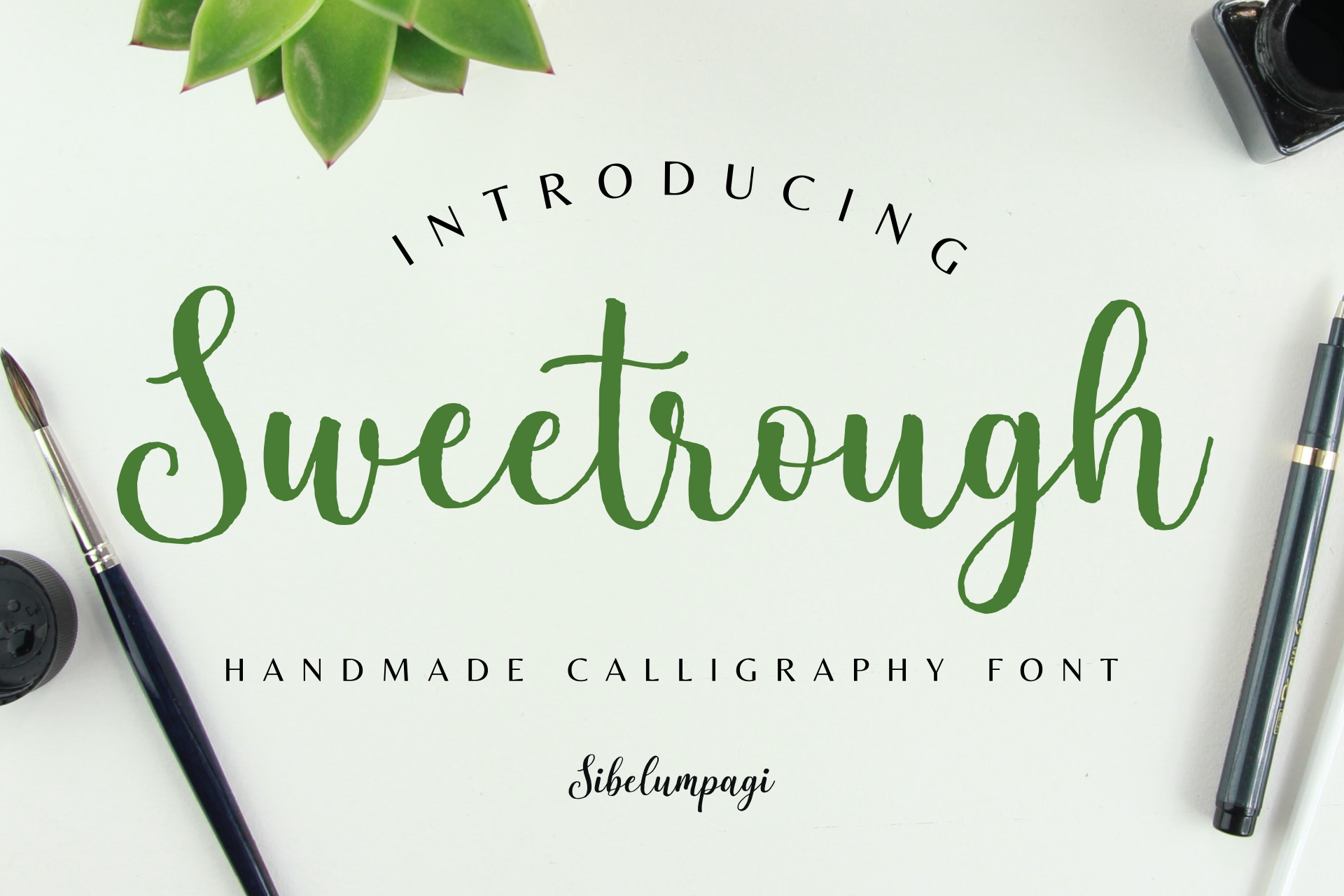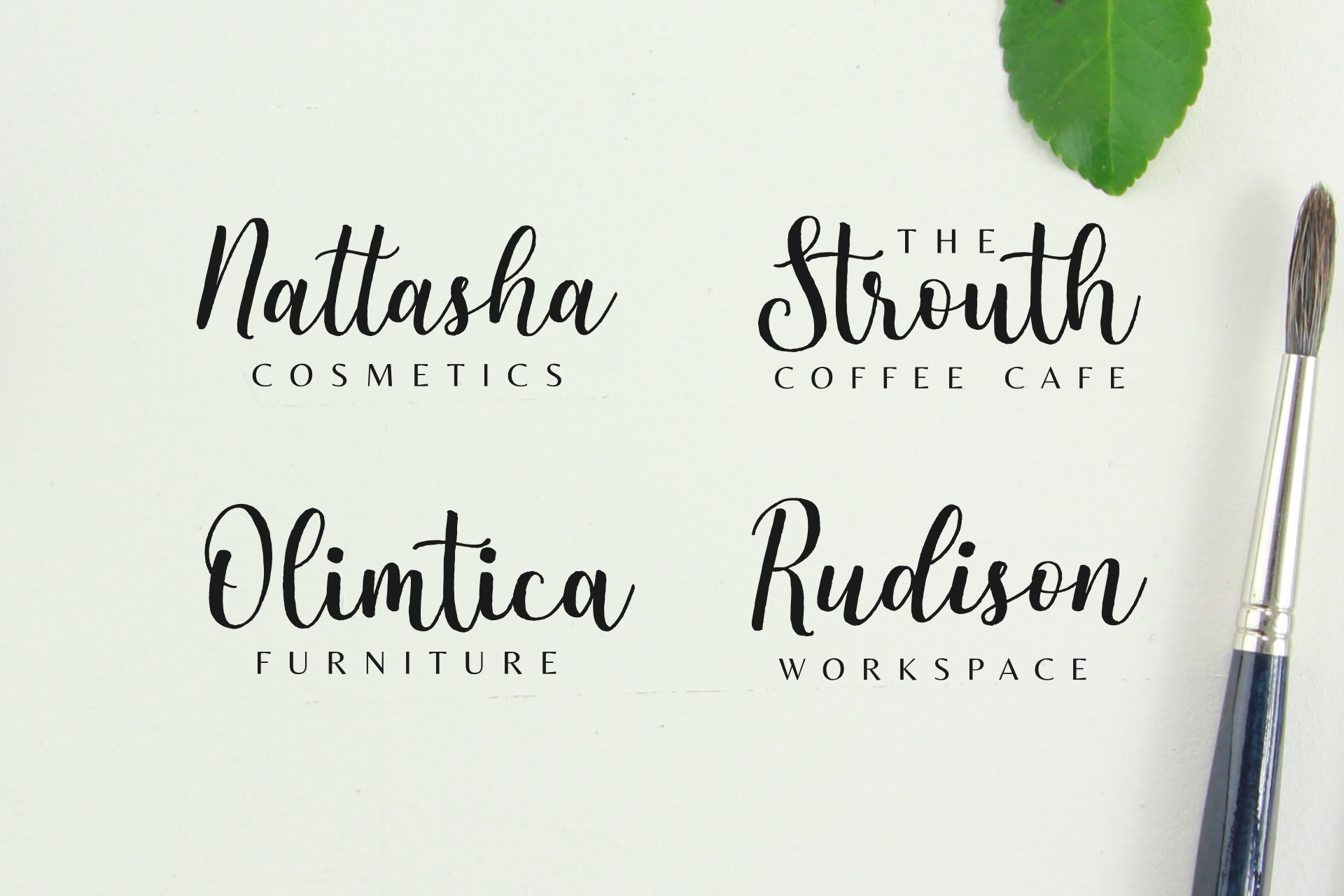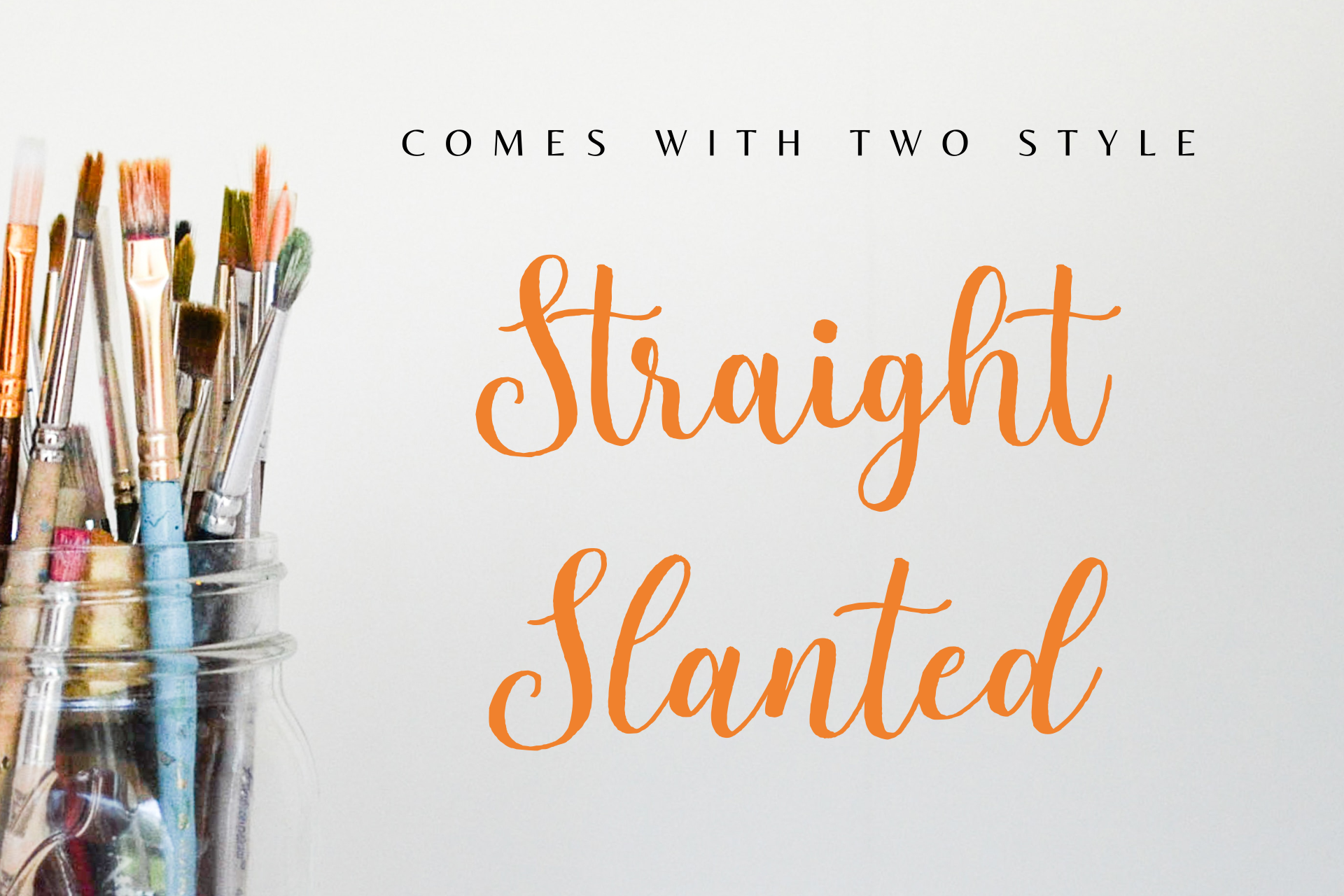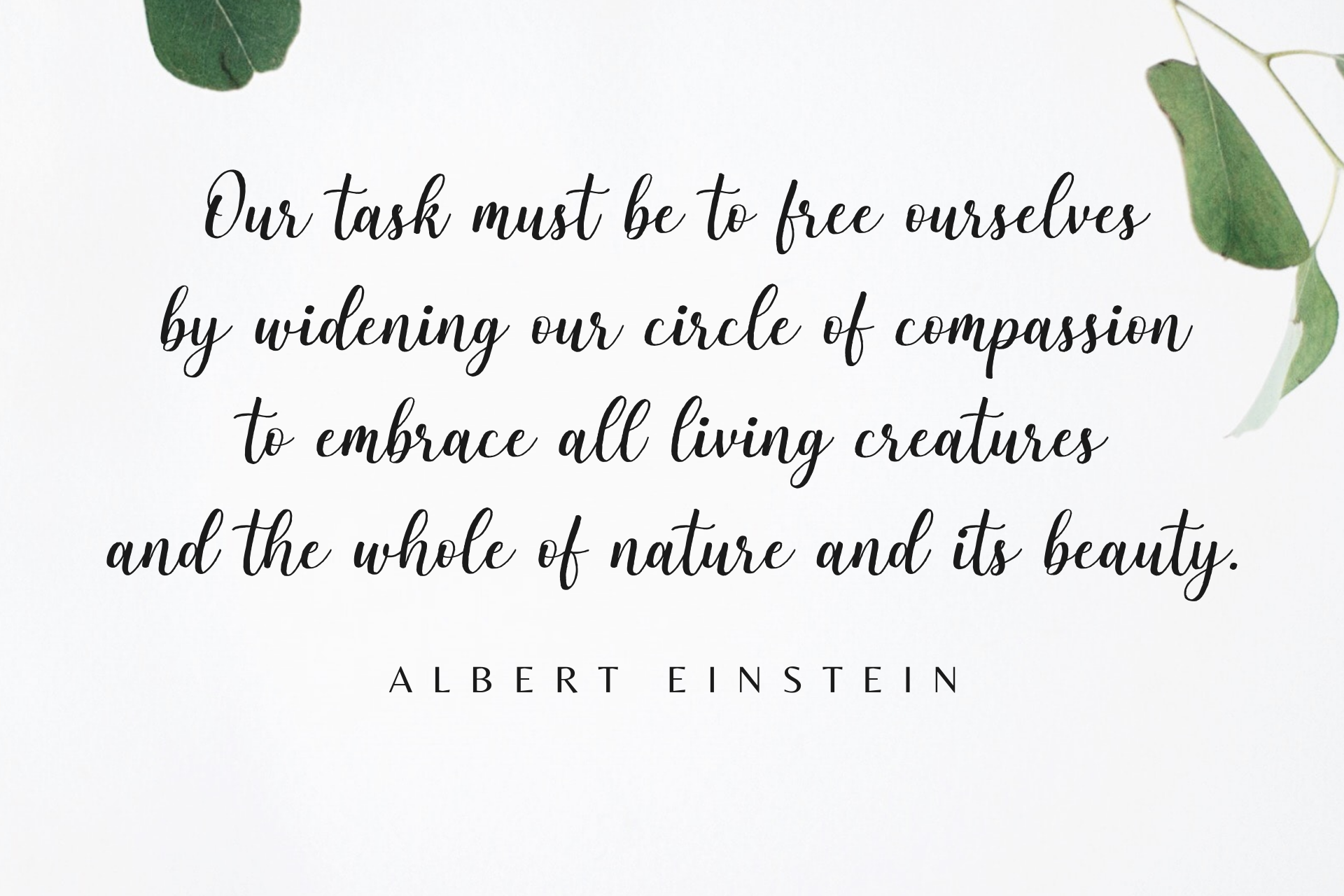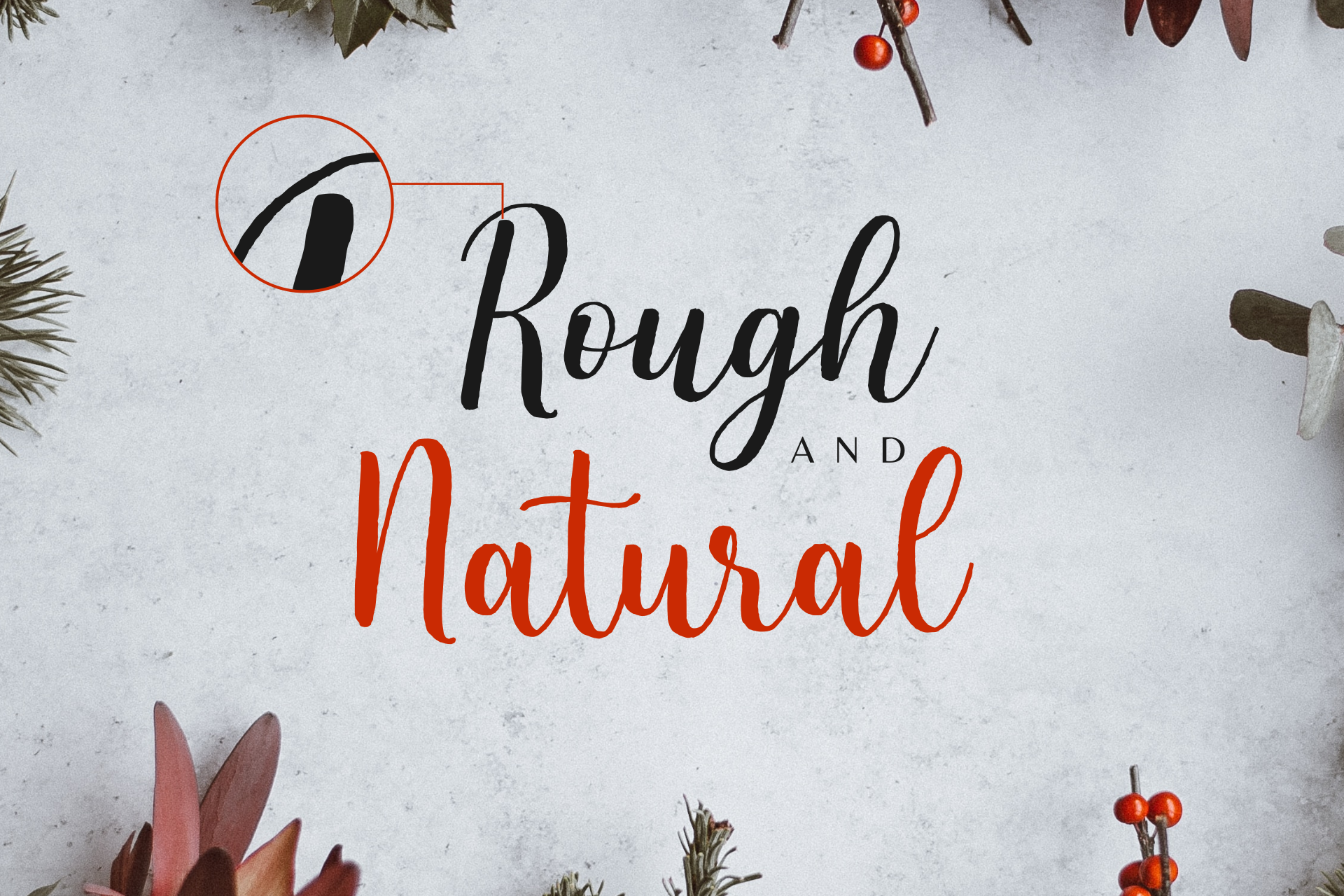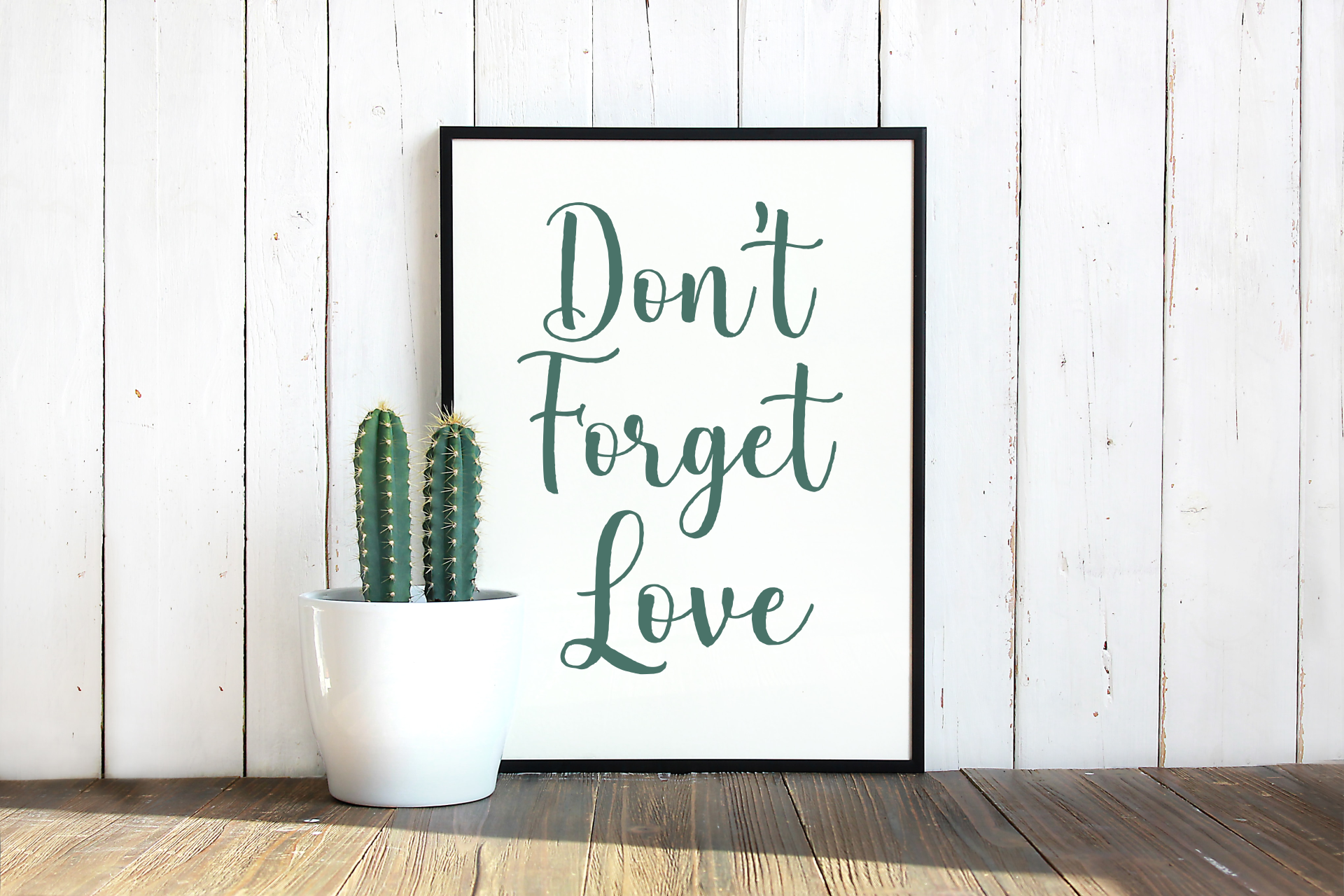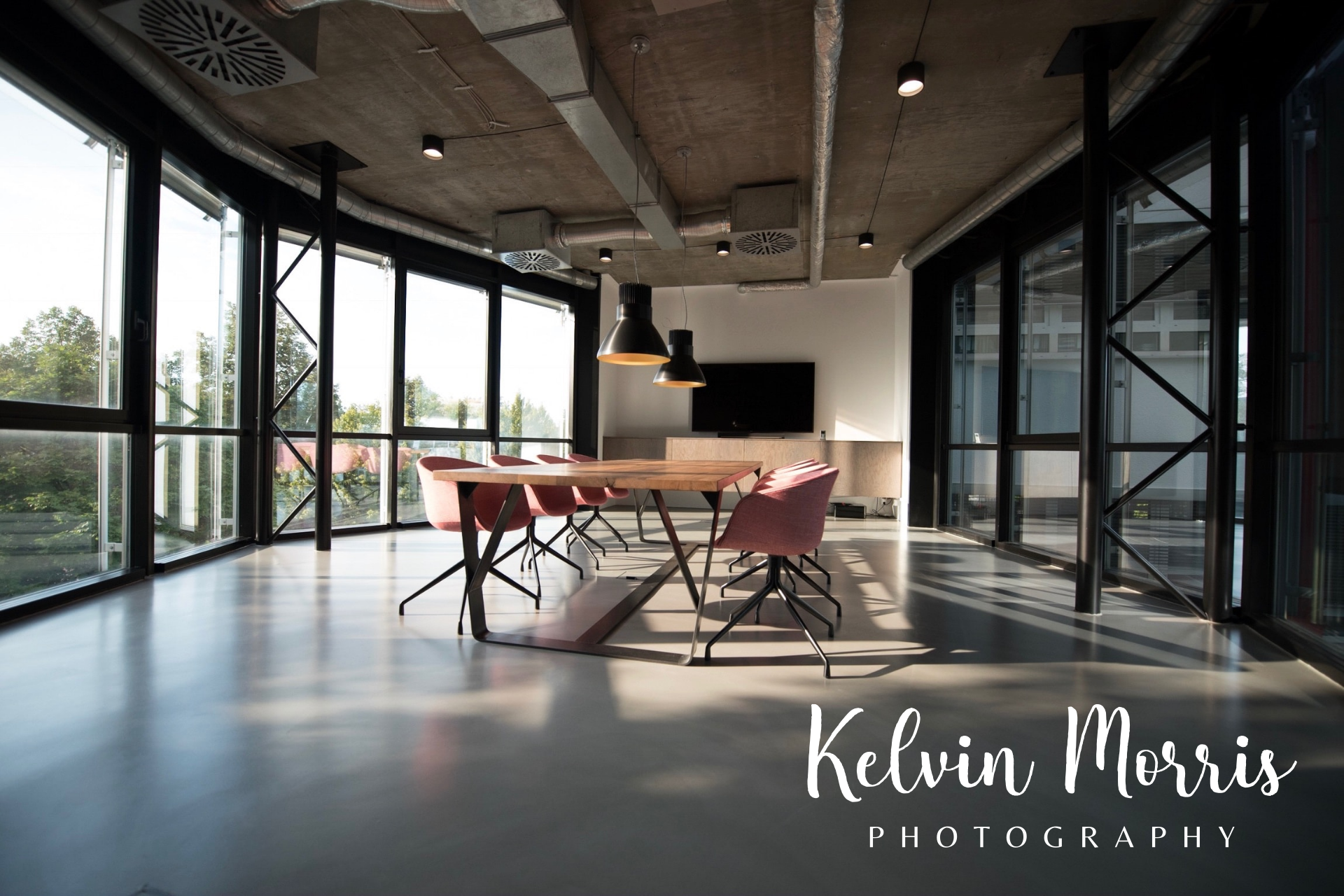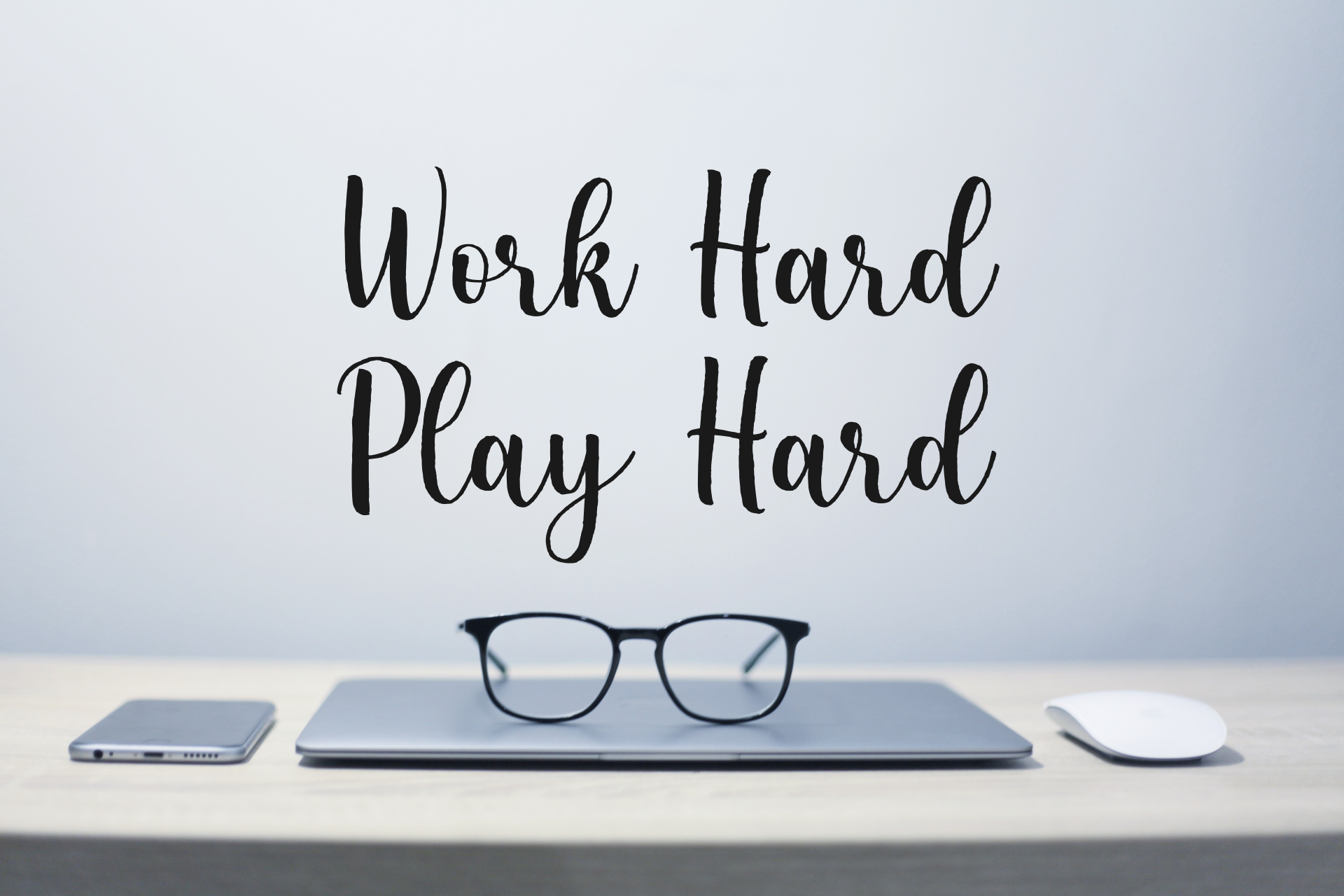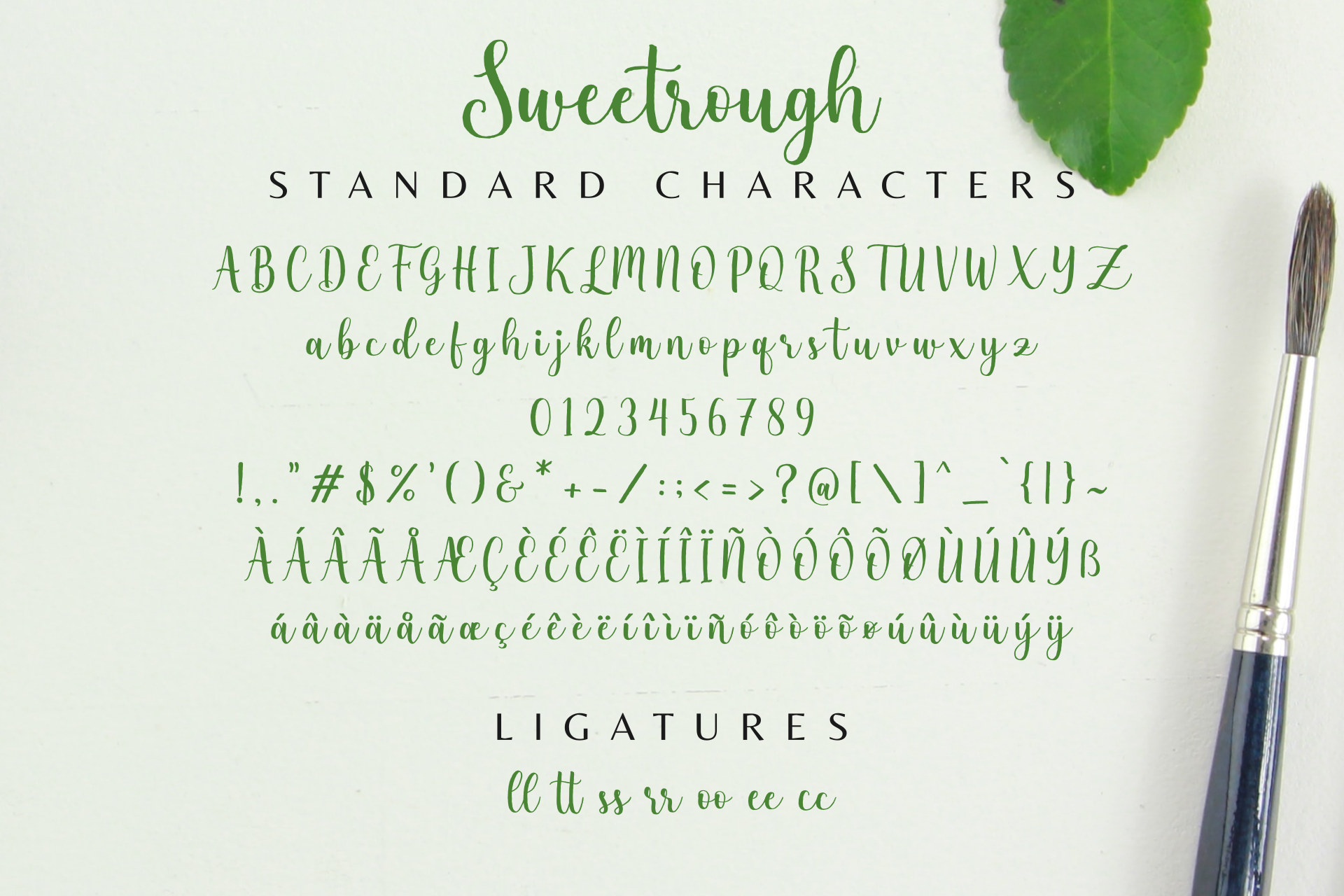
Sweetrough - Handmade Calligraphy Font
Sweetrough is a bold and casual script font with natural lettering and an authentic vibe. Its unique style gives designs a handmade and expressive character.
Sweetrough, Sweetrough Slanted
Sweetrough is a bold and casual script font with natural lettering and an authentic vibe. Its unique style gives designs a handmade and expressive character. It is perfect for logos, posters, apparel, packaging, labels, quotes, branding, and more.
Logos, posters, apparel, packaging, labels, quotes, branding,
Sweetrough, Sweetrough Slanted